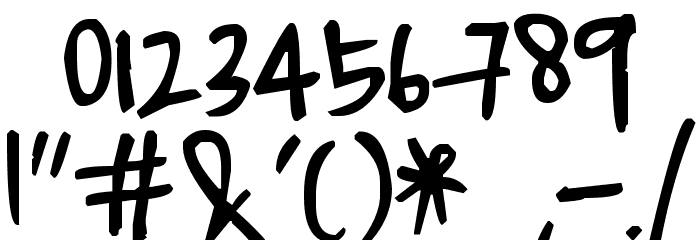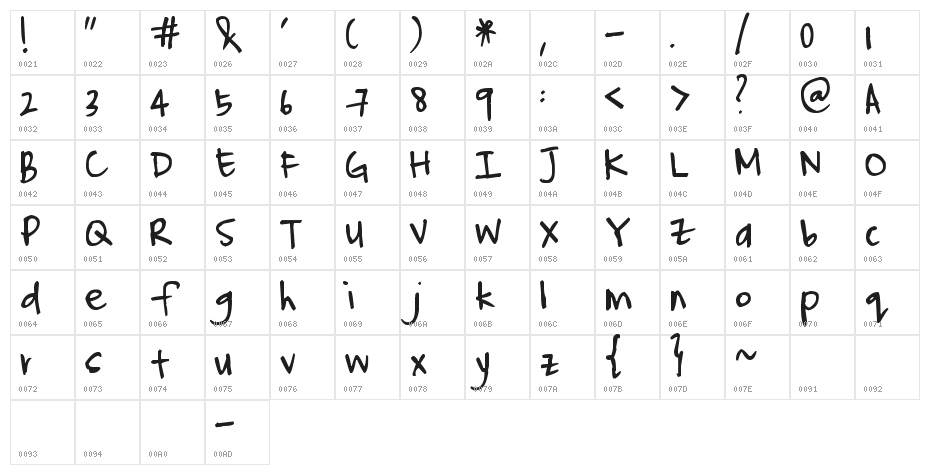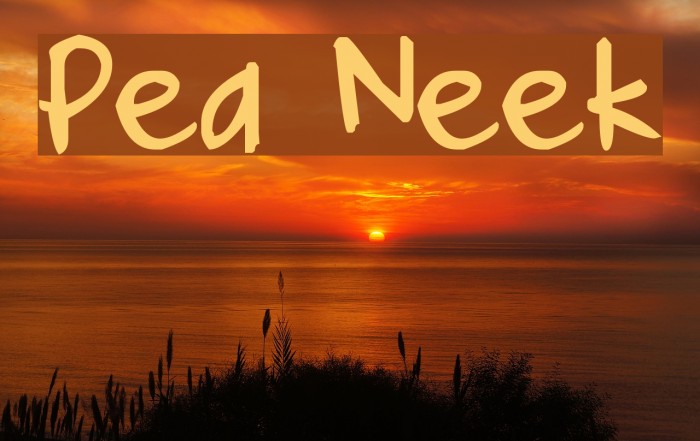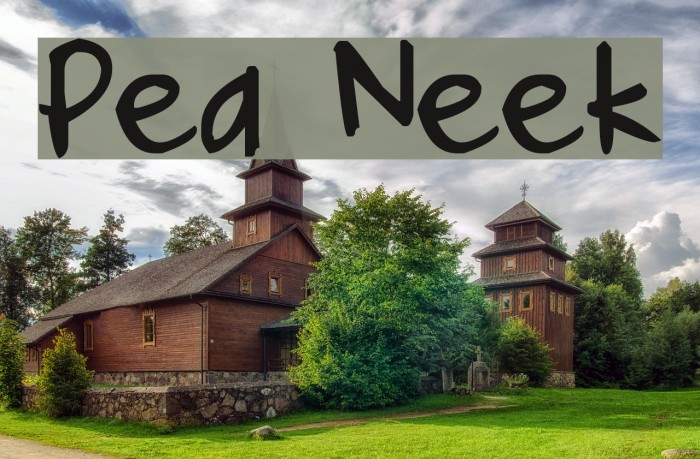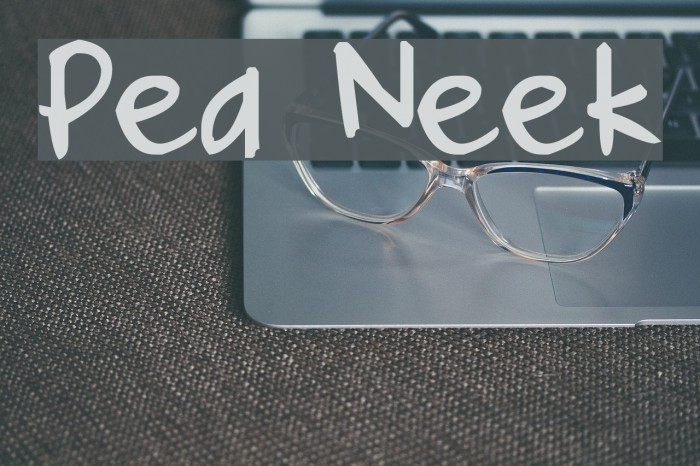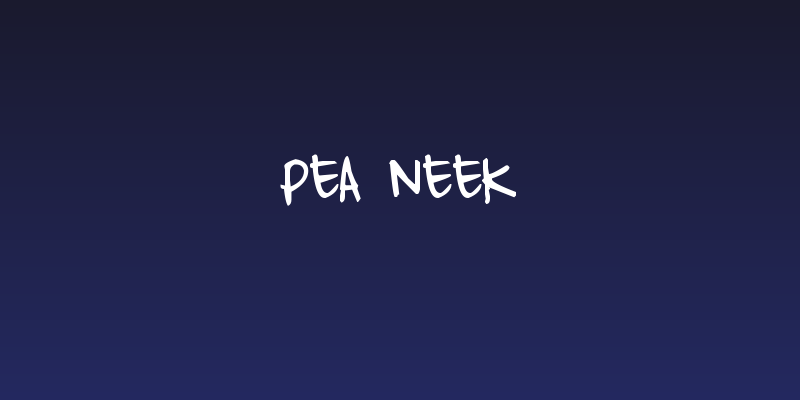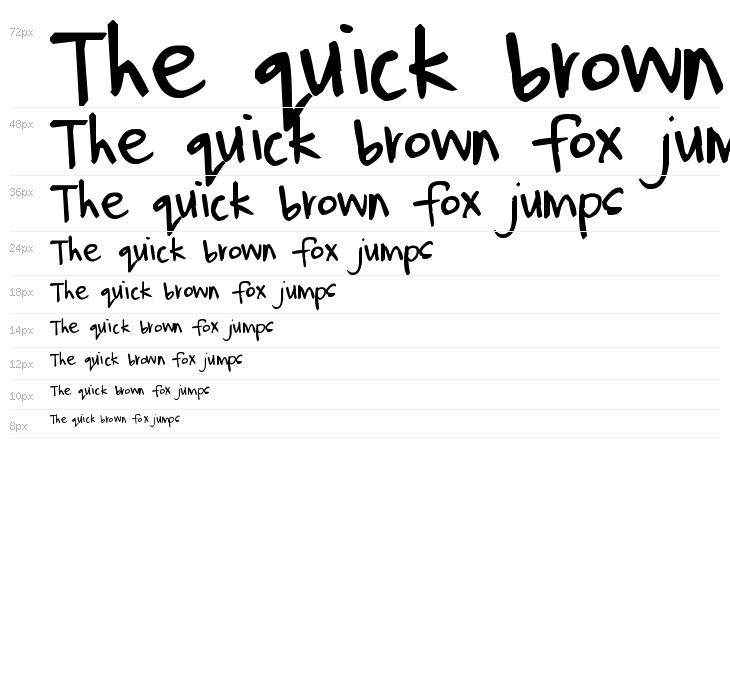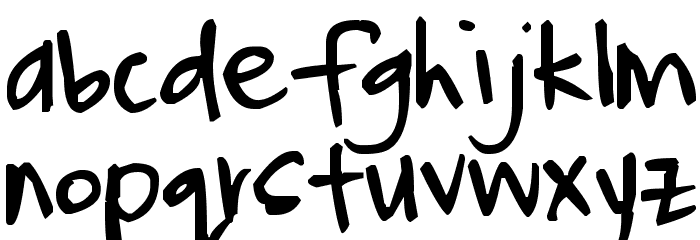
Pea Neek Font
Pea Neek Description
This font features a playful and casual handwritten style, characterized by its uneven strokes and slightly irregular letterforms. The letters have a natural, organic feel, reminiscent of a personal note or a quick sketch. The uppercase and lowercase letters maintain a consistent style, with rounded edges and a slight slant, adding to the informal and friendly appearance. The numerals and special characters follow the same aesthetic, ensuring a cohesive look across all text. This font's charm lies in its simplicity and approachability, making it suitable for projects that require a personal touch.
| Use Case | Headlines, Informal text, Personal notes |
| Proposed Projects | Ideal for greeting cards, personal blogs, children's books, and informal branding projects. |